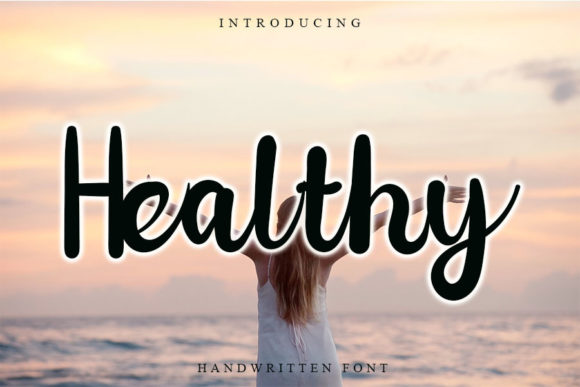
Discover Healthy Font, the Quintessential Script Font for Creating Enduring Masterpieces
Welcome to the world of Healthy Font, a meticulously handcrafted script font that captivates with its elegant charm. As a member of the script font family, Healthy exudes a touch of sophistication and finesse that effortlessly elevates your creative projects to new heights of artistry. Whether you're a seasoned graphic designer seeking the perfect font for your next masterpiece or a passionate crafter looking to add a personal touch to your DIY creations, Healthy Font is your ideal companion.
Immerse yourself in the artistic possibilities and let your imagination soar as you discover the boundless applications of Healthy Font. From adding a touch of whimsy to your Instagram posts to transforming your calligraphy scripts into breathtaking works of art, Healthy Font is the ultimate tool to ignite your creativity. Experience the joy of turning ordinary words into extraordinary expressions that resonate with your audience and leave a lasting impression.
With Healthy Font, you'll discover a world of endless possibilities, where your creative vision takes center stage and your projects come to life with renewed vibrancy. Unleash the limitless potential of Healthy Font and embark on a journey of artistic exploration that will redefine your creative boundaries.